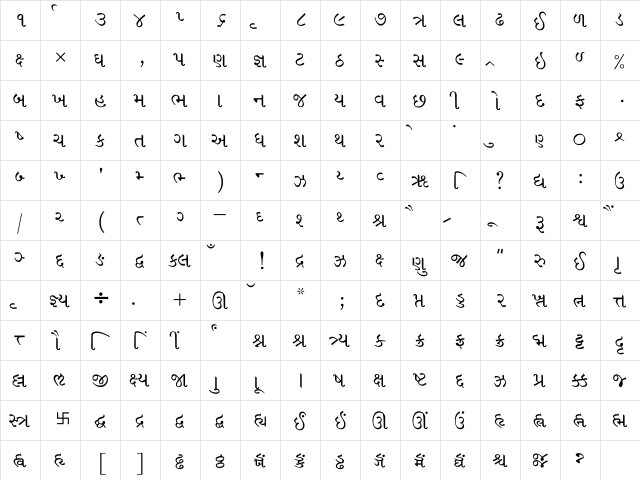
TERAFONT-VARUN Normal
Design Context for TERAFONT-VARUN Typeface
TERAFONT-VARUN takes a measured approach to typography — its balanced proportions and neutral character make it a reliable workhorse for both digital and print work.
Pro Tip: Use TERAFONT-VARUN in both headline and body roles to test its range before committing to a single application.